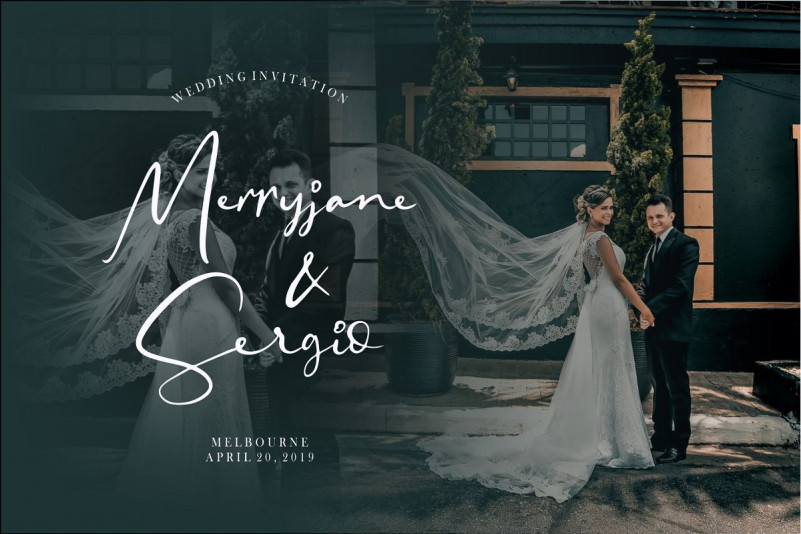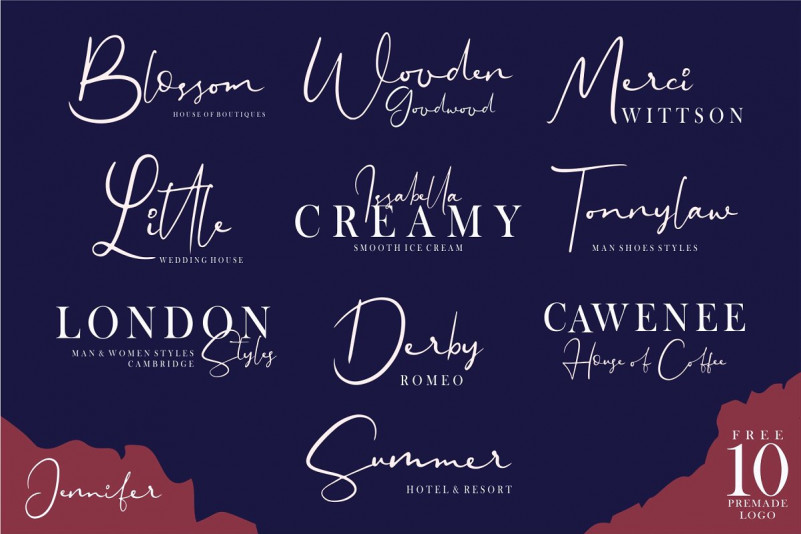
Jennifer Signature Font
Jennifer Signature Font – Free Demo
Hello world..!! This is a new classy script with a dancing baseline stylish handwritten , classic script style make this font looks natural, classy and perfect for any awesome project that need hand writing taste. Introducing Jennifer Handwritten Font! Jennifer designed and shared by Good Java Studio. Jennifer Signature Font is a natural & modern handwritten font. I’ts Perfect for logo, invitation, stationery, wedding designs, social media posts, advertisements, product packaging, product designs, label, photography, watermark, special events or anything.